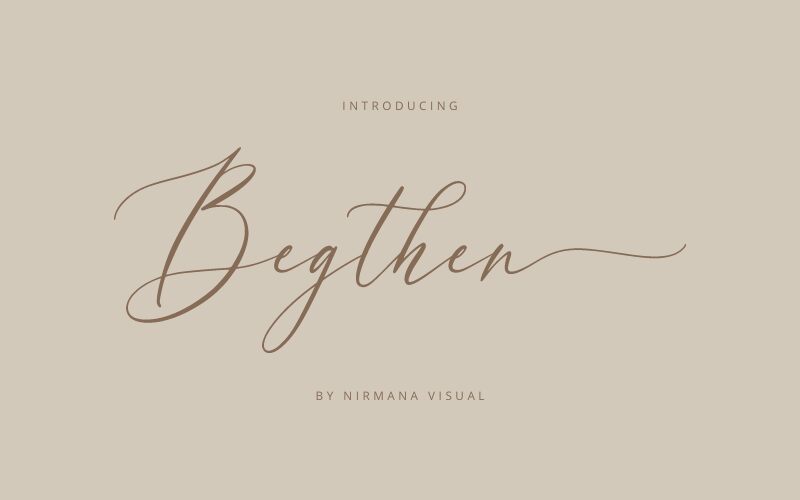
Begthen is an exquisite calligraphy font designed by Nirmana Visual. With its extra-light weight, this font perfectly captures the elegance of hand-lettering. Ideal for invitations, wedding stationery, and social media graphics, Begthen adds a touch of sophistication to any project. Its flowing strokes and delicate curves effortlessly capture the beauty of handwritten script. Whether you're designing a logo or creating personalized gifts, Begthen is the perfect choice for any project that requires a touch of class. Let your creativity flourish with this stunning typeface that will elevate your designs to new heights!
Begthen